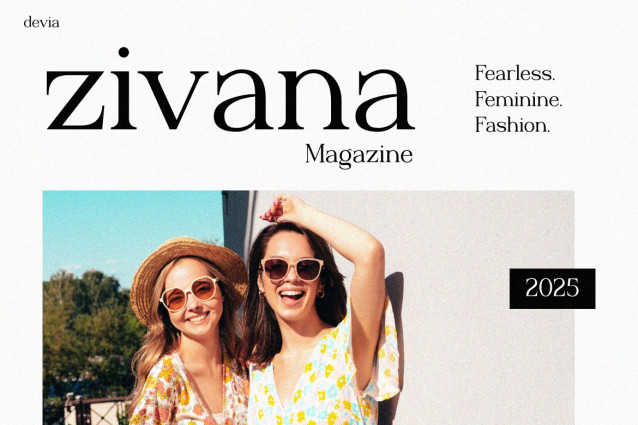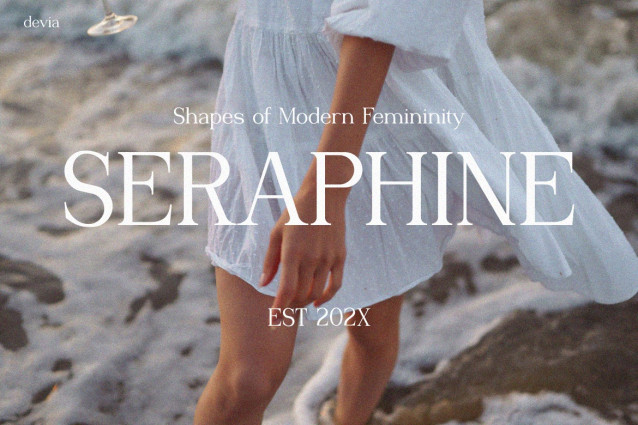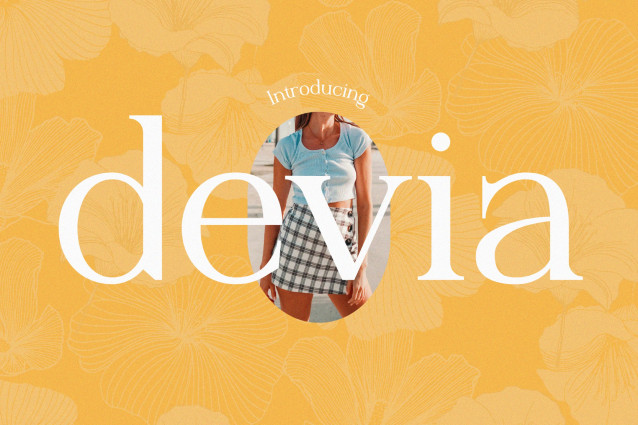
Devia Font
Devia Font is a unique typeface that blends sophistication with creativity, making it an excellent choice for modern branding. Its sleek curves, stylish balance, and versatile forms create an elegant aesthetic that captures attention instantly. Moreover, unlike generic fonts, Devia brings a sense of character and personality to your designs, making your visuals stand out both on social media and in print. Therefore, it is not only visually attractive but also highly functional across different platforms.
The beauty of Instagram Font Devia lies in its harmonious mix of boldness and grace. Each letter is carefully designed to reflect both confidence and softness, which makes it adaptable to many creative themes. In addition, the typeface ensures your text doesn’t just inform but inspires, creating a long-lasting impression on your audience.
Furthermore, Devia works seamlessly across different media. From magazine covers, branding identity, packaging, and logos, to Instagram stories, this font provides a timeless charm that elevates any project. As a result, your work gains a polished, editorial look without losing a friendly and approachable appeal.